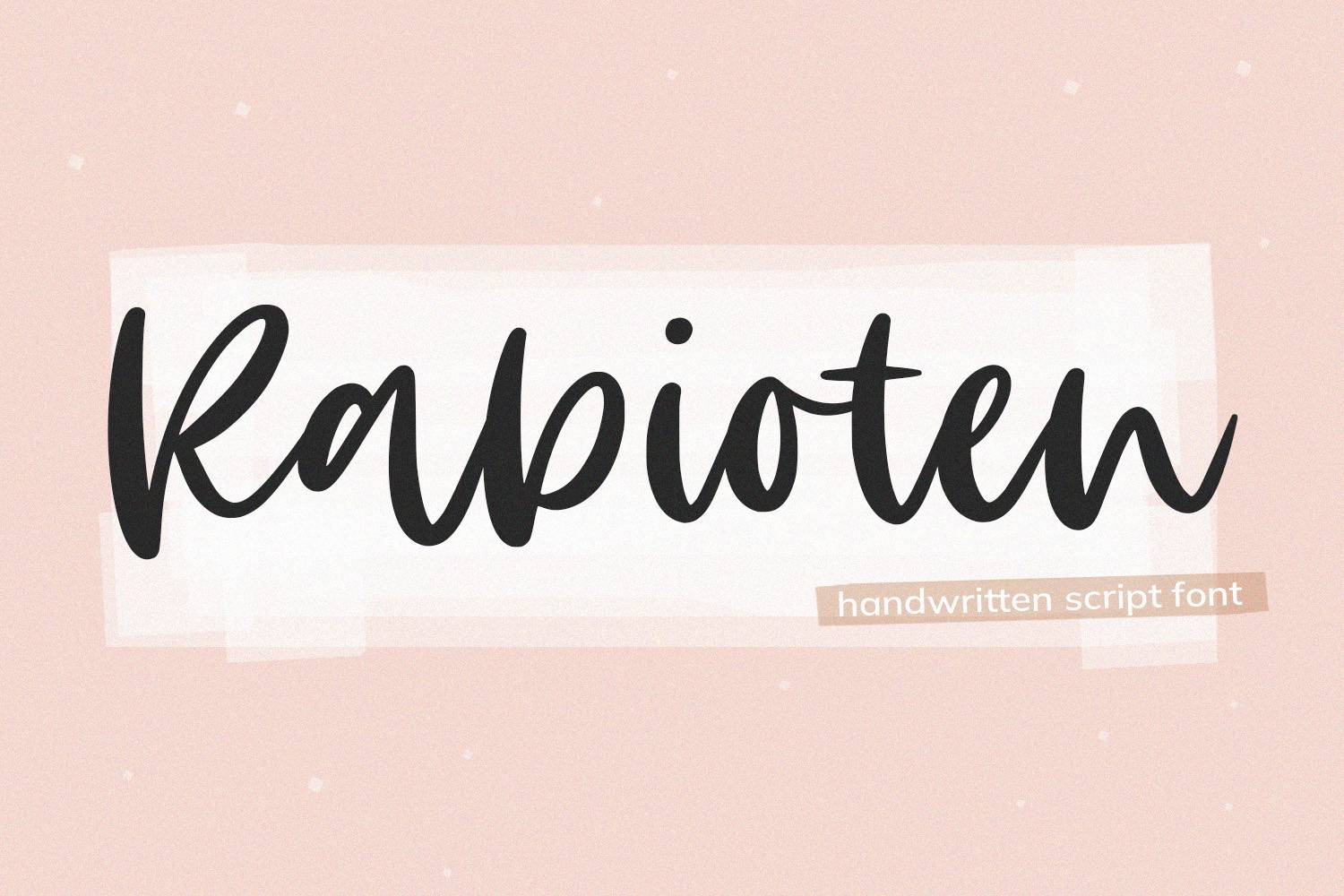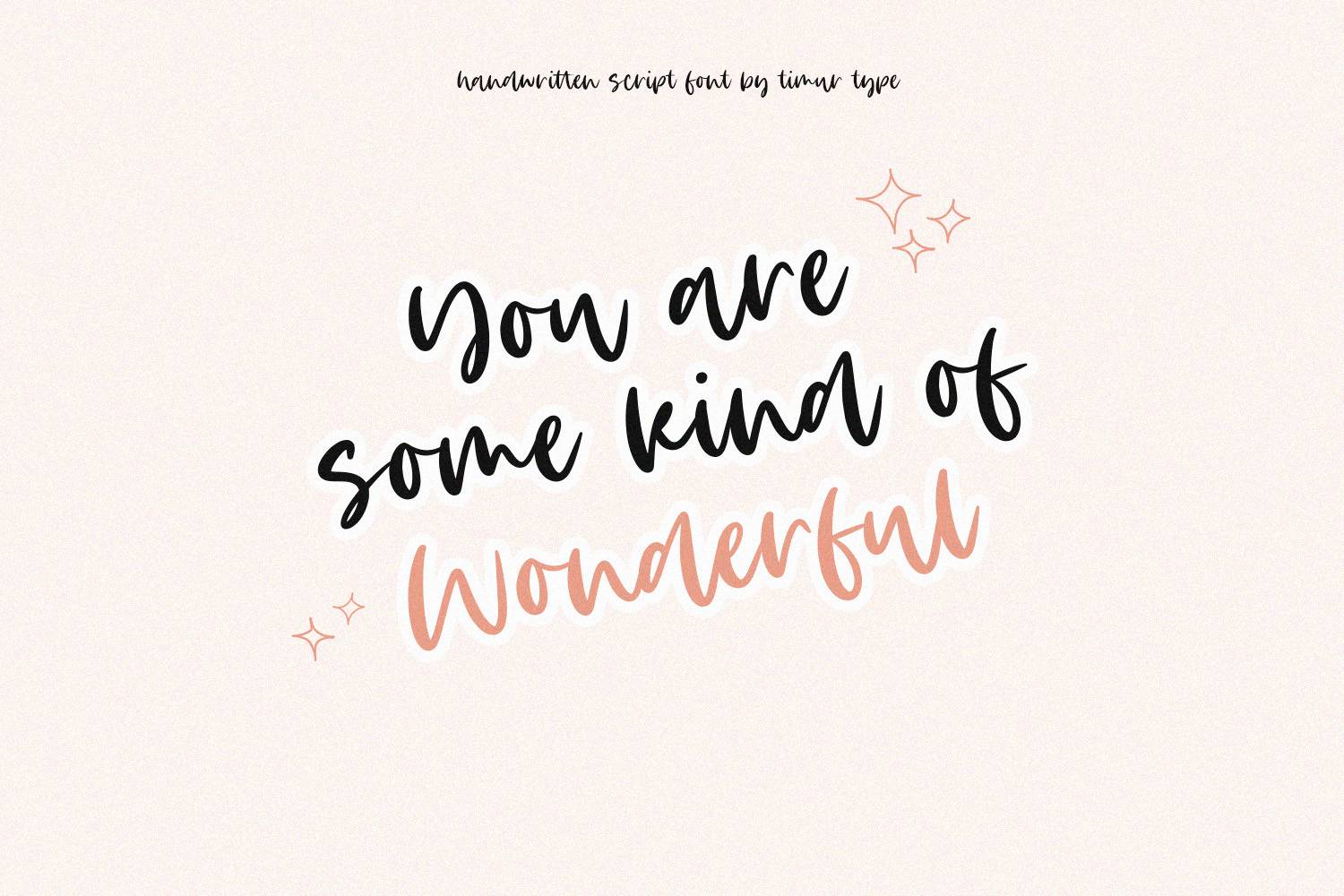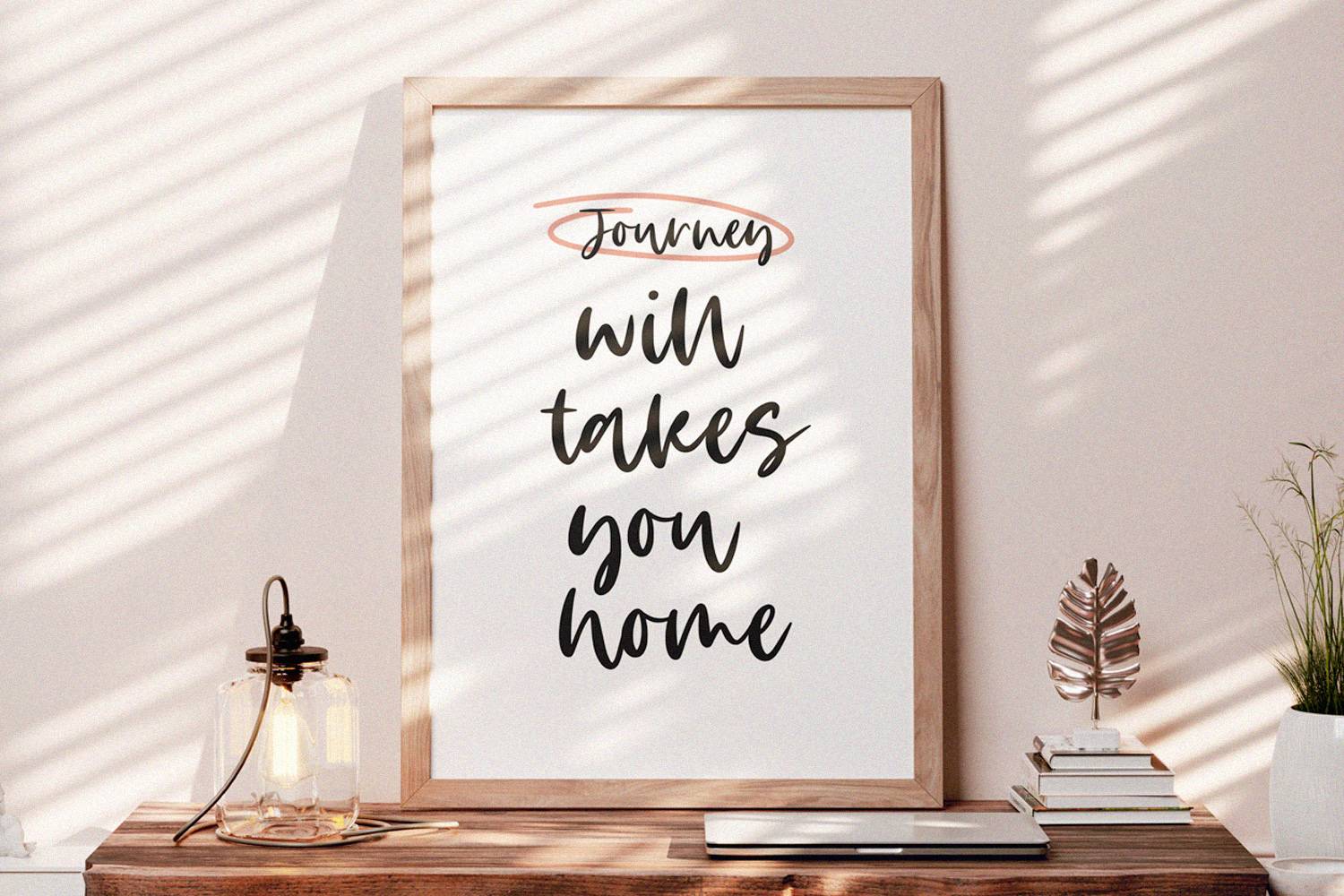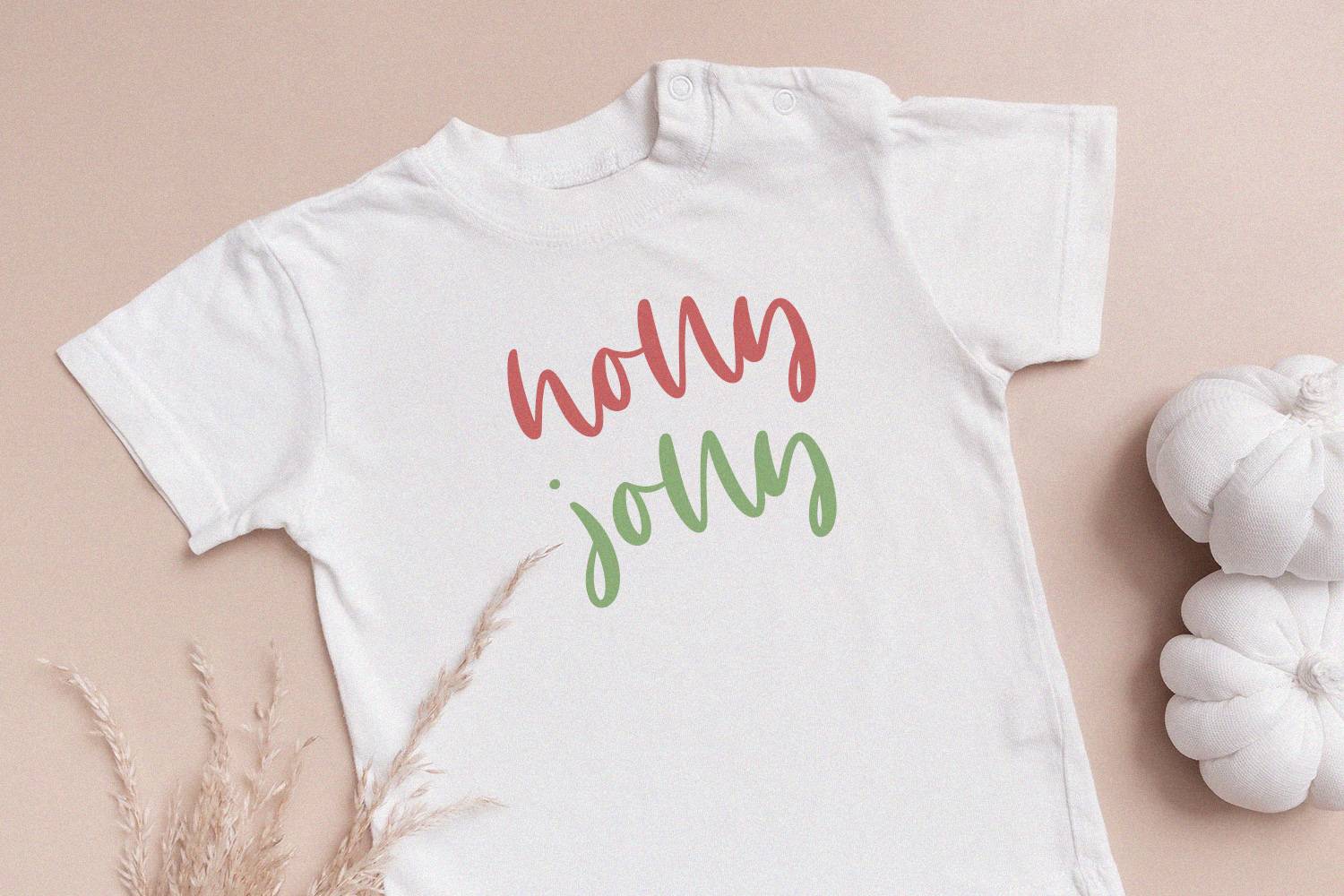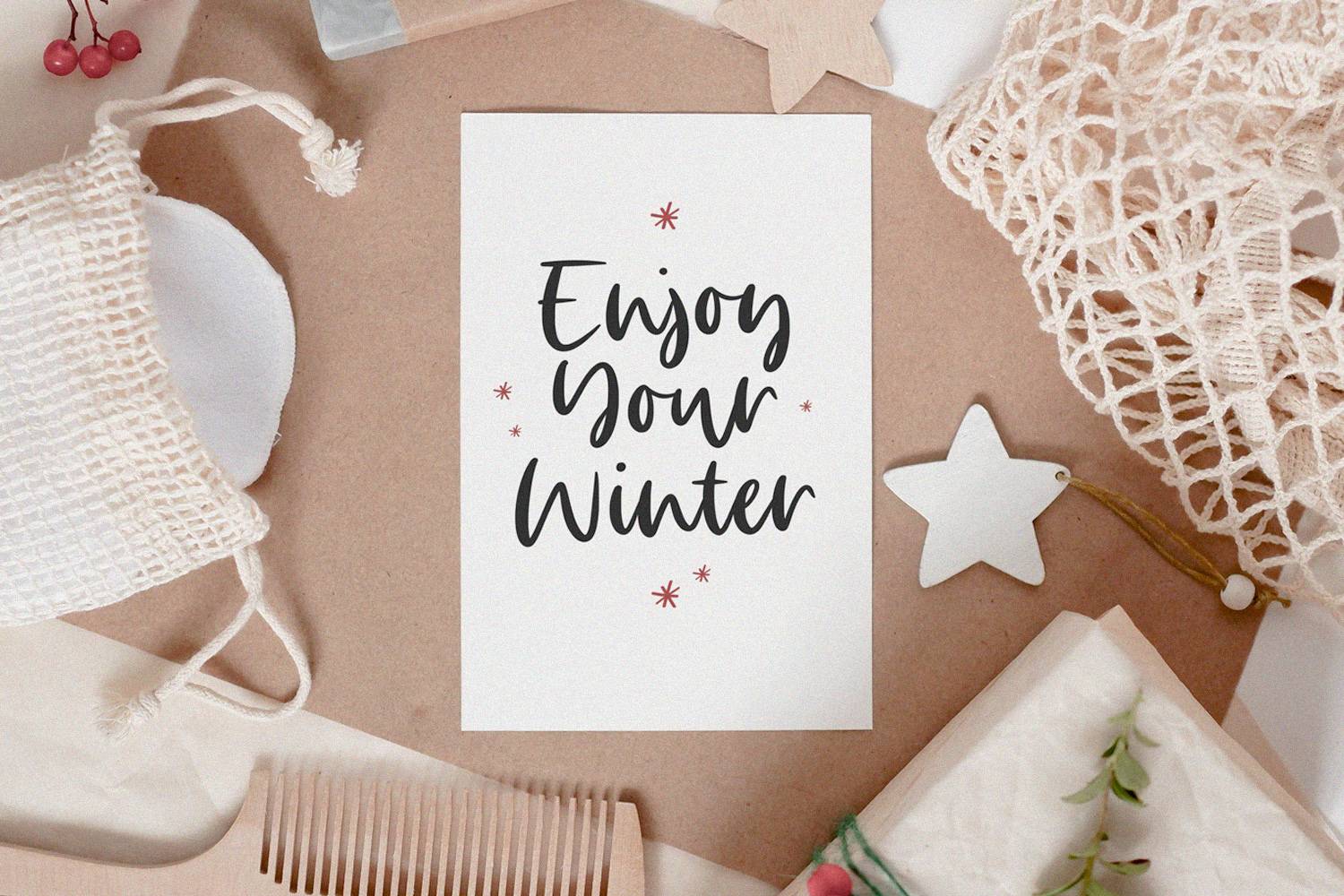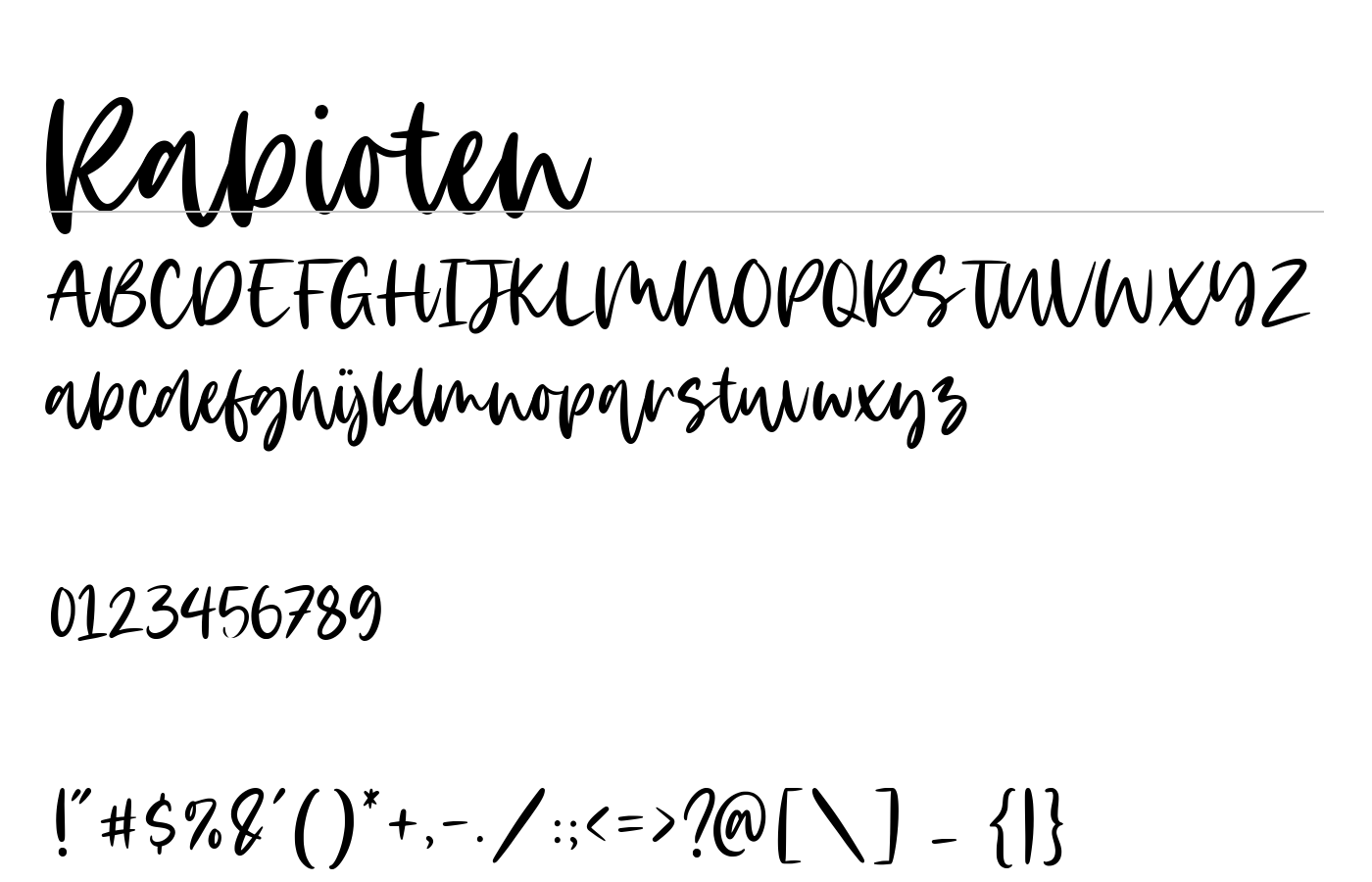
Rabioten is a playful and modern handwritten script font characterized by its casual, flowing letterforms and lively strokes. It features a medium weight with a friendly, approachable vibe, making it ideal for creative and informal designs like invitations, branding, and social media content. With its clear readability and dynamic style, Rabioten works well for both headlines and short text, adding a personal and artistic touch to any project.
Rabioten Font
About Rabioten Font